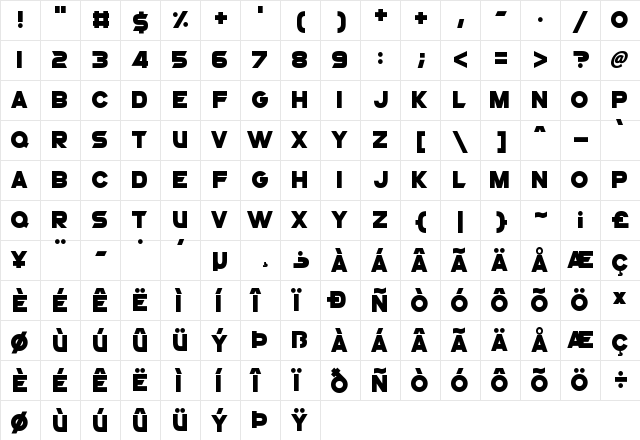
Superstar X Regular
Design Context for Superstar X Typeface
Superstar X offers clean, dependable letterforms without strong stylistic allegiance, making it a practical choice for designers who need flexibility.
Pro Tip: Pair Superstar X with a font of contrasting weight or personality to build a more expressive typographic hierarchy.